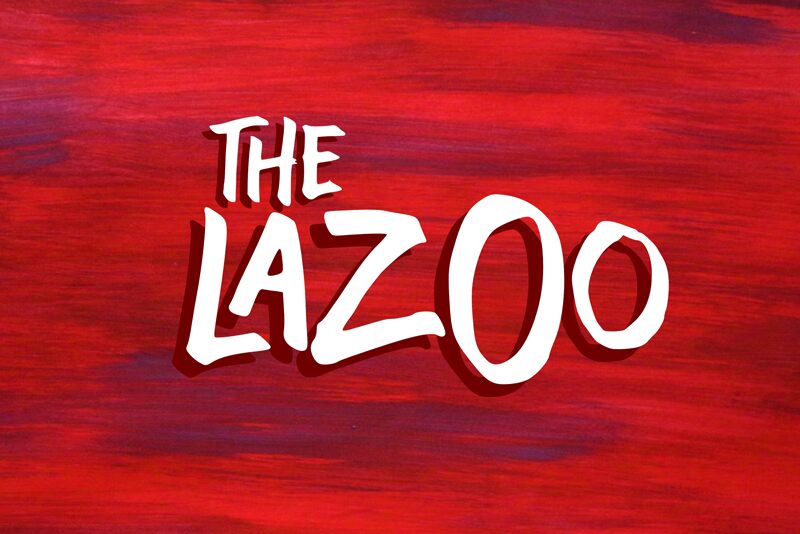
The Lazoo font by Toko Laris Djaja showcases a dynamic brush style that exudes energy and creativity. Its bold, expressive strokes capture attention effortlessly, making it perfect for projects requiring a lively and artistic touch. Ideal for branding, headlines, posters, and any design needing a standout element, The Lazoo font adds a personal flair to your text.
Embracing its brush-inspired aesthetic, this free font brings flexibility to designers seeking an authentic hand-crafted look. Offering ease of download, The Lazoo is an excellent choice for creatives wanting to make a visual impact with their work.